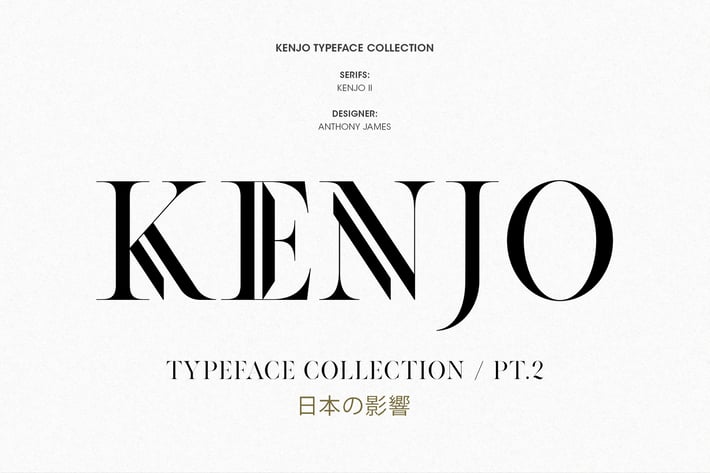
KENJO FONTS | PT. II
KENJO II TYPEFACE
Kenjo II typeface, with Japanese/Art Deco influence. Completely uppercase (currently), Kenjo II is a versatile stylized follow-up to Kenjo I, a legible and well-balanced Serif, with elegant fashion-conscious characteristics. Thank you!